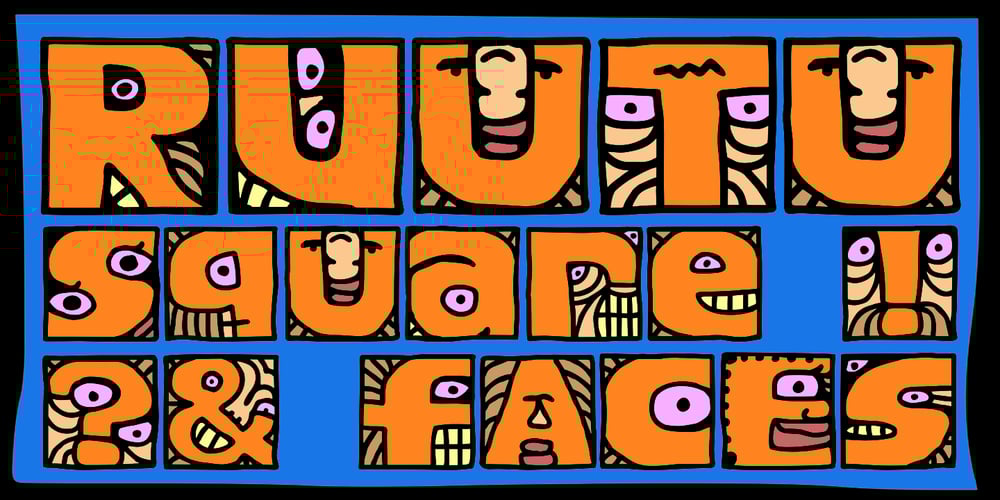
Ruutu Font Family was designed by Heikki Morgan Hämäläinen and published by Morganismi. Ruutu contains 1 styles and family package options. Ruutu is a square but queer font presenting odd faces. Supports multiple tongues.